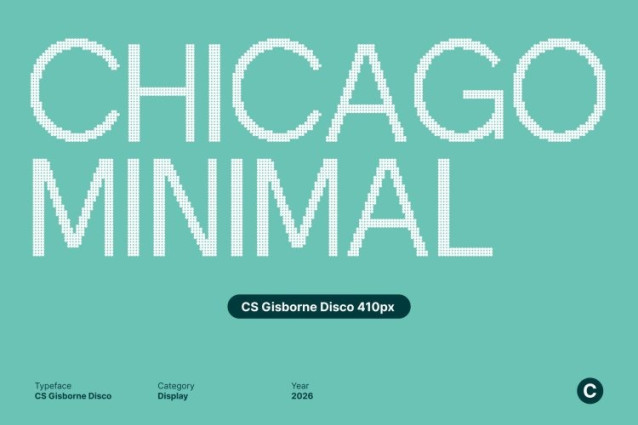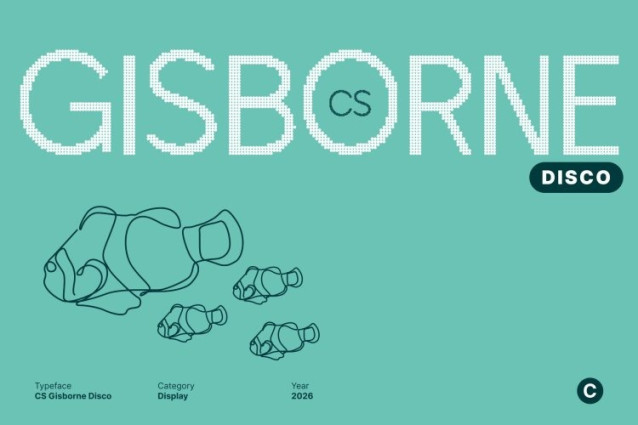
CS Gisborne Disco Font
CS Gisborne Disco Font This is a contemporary sans serif font that fuses clean geometric precision with vibrant disco energy. Its sharp detailing and structured forms deliver clarity and confidence, while the disco styling adds a lively rhythm inspired by flashing lights and modern nightlife. The result is a typeface that feels polished, confident, and irresistibly dynamic.
Structured Strength with Radiant Presence
Built on consistent proportions and meticulously crafted letterforms, this font maintains a sense of control and professionalism. At the same time, its energetic character injects visual excitement like sharp typography illuminated on a glowing dance floor. This balance makes the font powerful, readable, and visually engaging across bold display applications.
Perfect for Modern Brands with a Festive Edge
From logos and branding systems to UI/UX design, posters, and editorial layouts, adapts effortlessly. Its modern geometric foundation supports clean communication, while its disco-inspired flair brings glamour and celebration making it ideal for tech-forward brands, creative studios, music events, and contemporary campaigns that want to feel alive.
Timeless Professionalism with Nightlife Energy
This font blends minimalism, sharp elegance, and festive expression into one confident voice. It doesn’t shout but it shines. Whether used for corporate visuals with attitude, premium packaging, event branding, or digital interfaces, this typeface delivers information with clarity, elegance, and a bold, energetic presence inspired by the pulse of the dance floor.